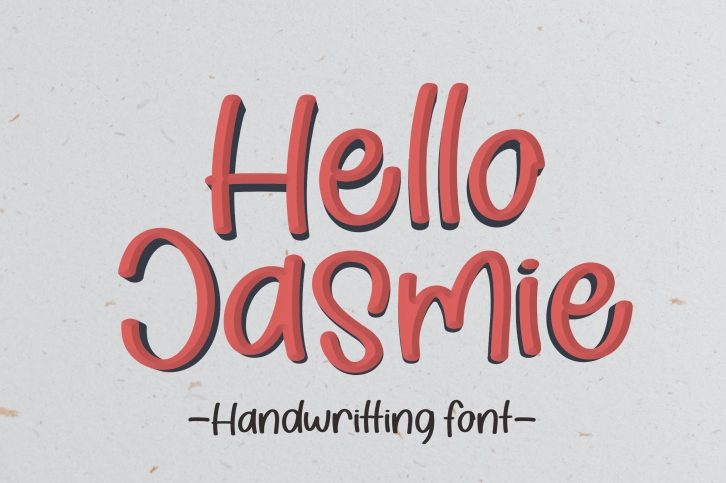
Hello Jasmie is a fun and fresh handwritten font. It has a modern yet whimsical style and it will undoubtedly immerse your designs into a playful world.